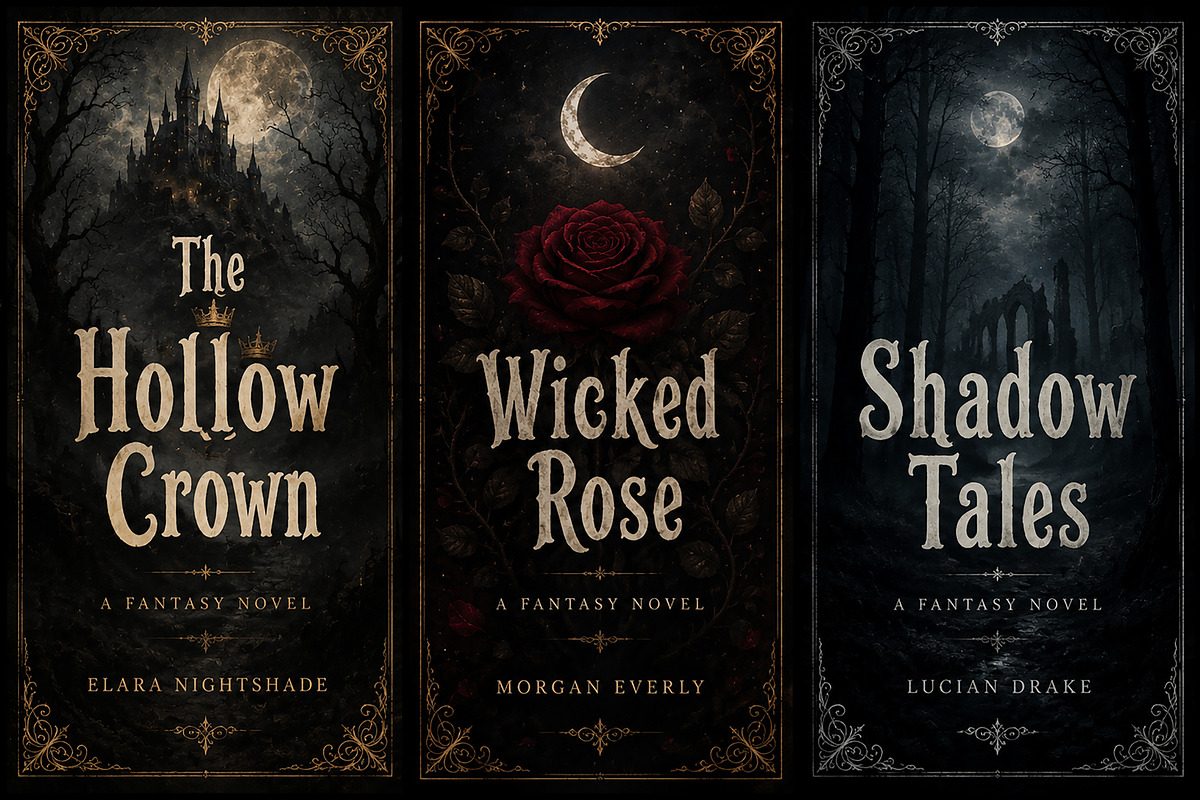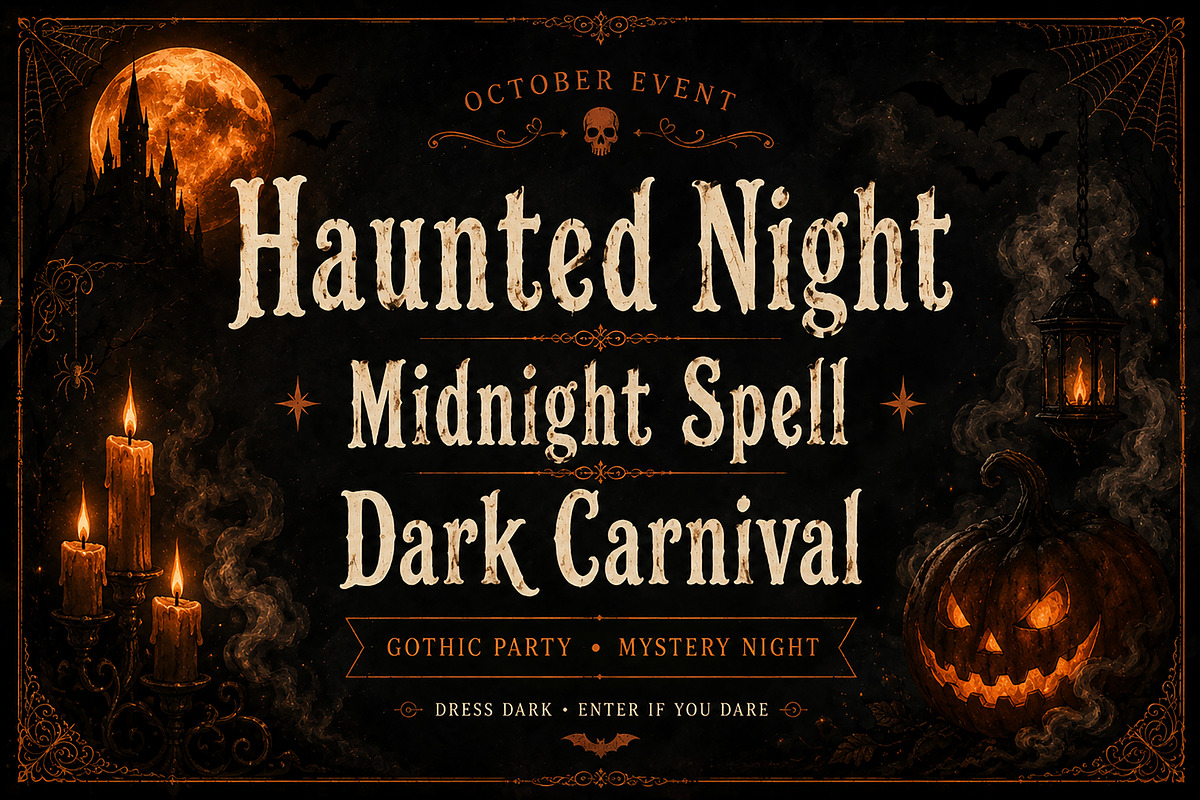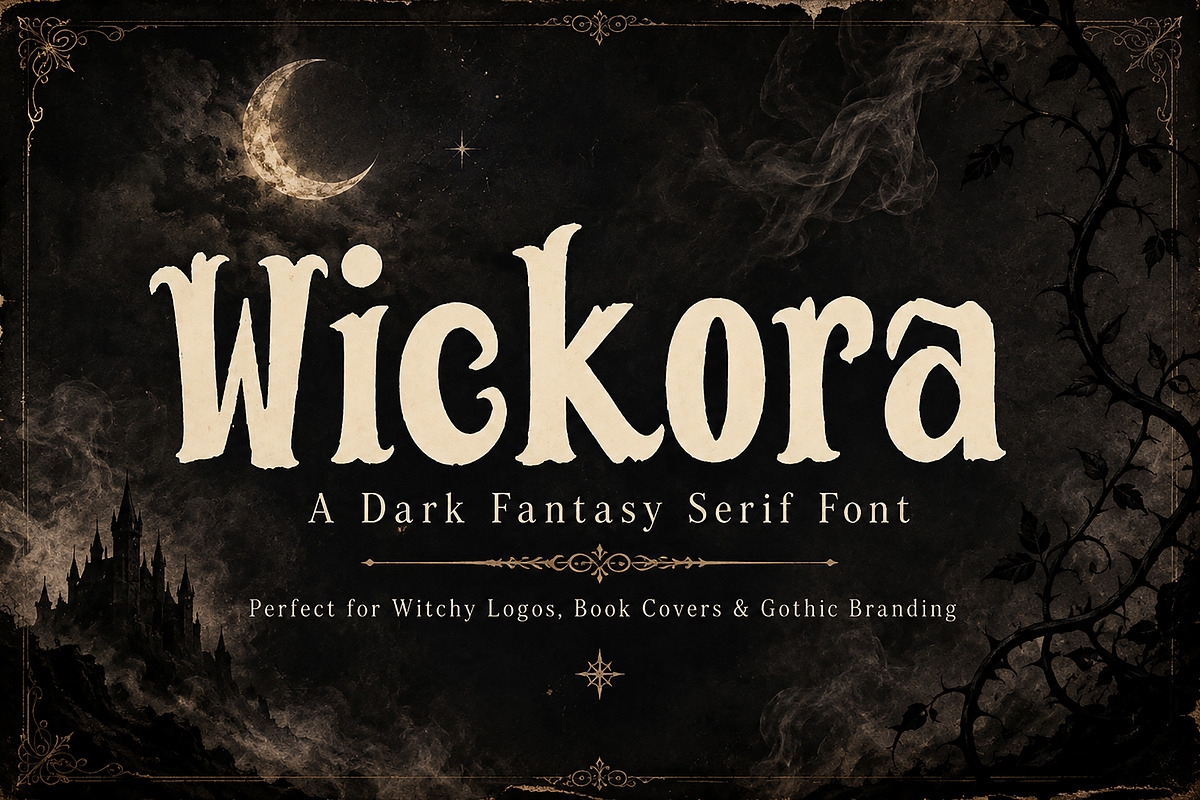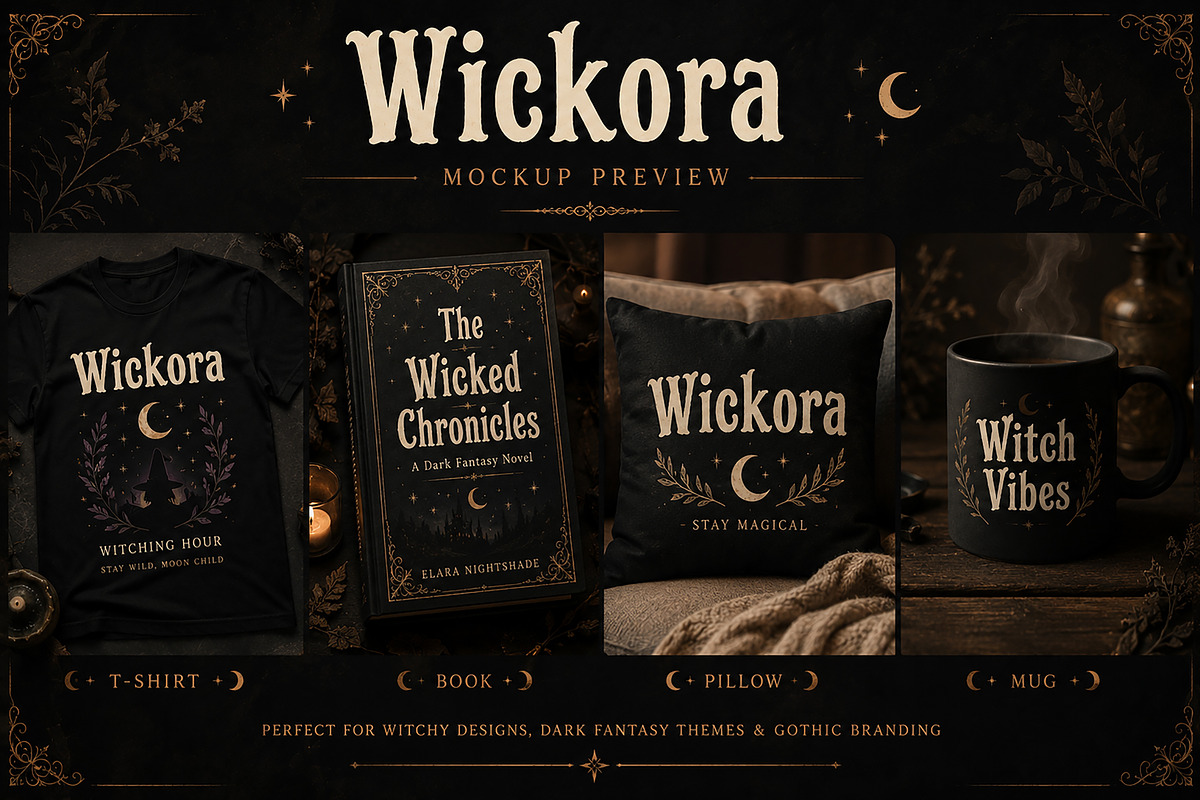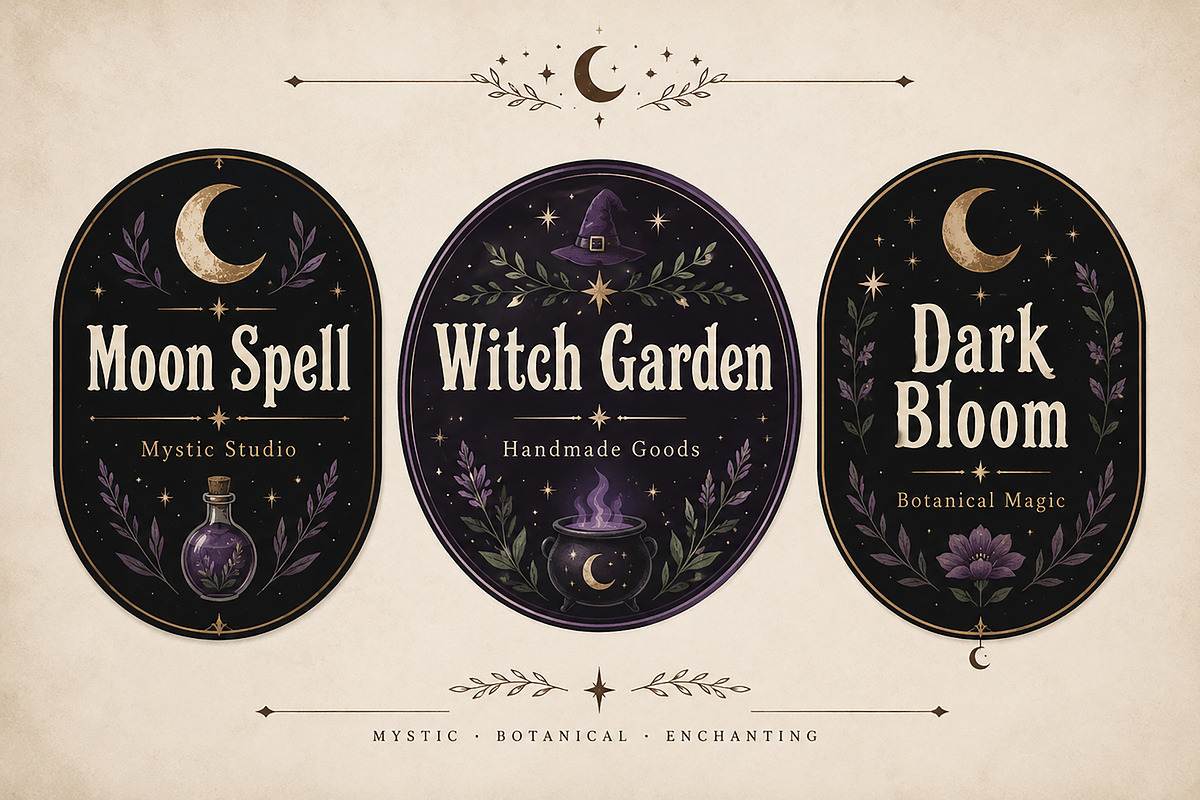
Wickora
A Dark Fantasy Serif Font
Wickora is a bold and atmospheric display serif inspired by gothic elegance, dark fantasy, vintage folklore, and mystical aesthetics. With its sharp handcrafted details and dramatic letterforms, this typeface creates an unforgettable visual impact for creative projects that demand a mysterious and premium look.
Perfect for designers, authors, and creative brands, Wickora adds character to logos, book covers, packaging, posters, invitations, apparel, and more. Whether you're designing for Halloween, witchcore, fantasy worlds, or luxury gothic branding, Wickora delivers a timeless and enchanting style.
Gothic & Witchy Branding
Fantasy Book Covers
Halloween Posters
Movie & Game Titles
Logos & Boutique Branding
Candle & Apothecary Labels
Tarot & Mystic Products
Editorial Design
Invitations
T-Shirts & Merchandise
Posters & Flyers
Website Headers
Creative Typography
Uppercase & Lowercase Letters